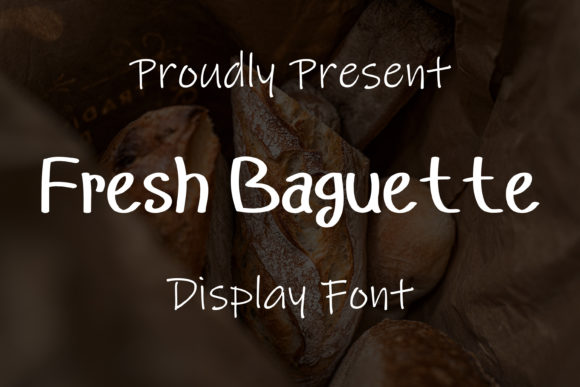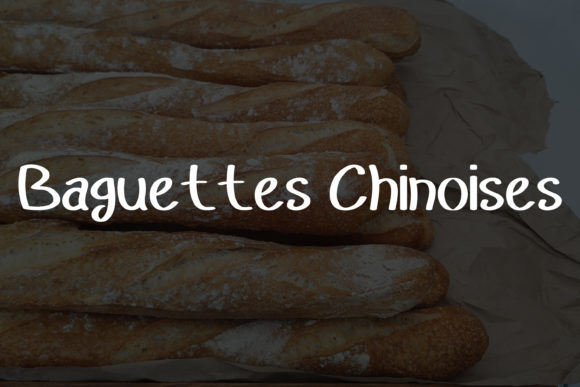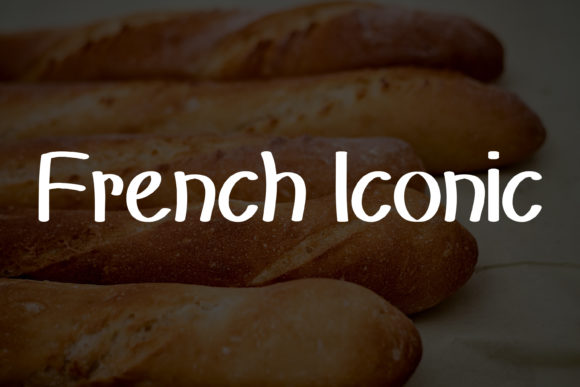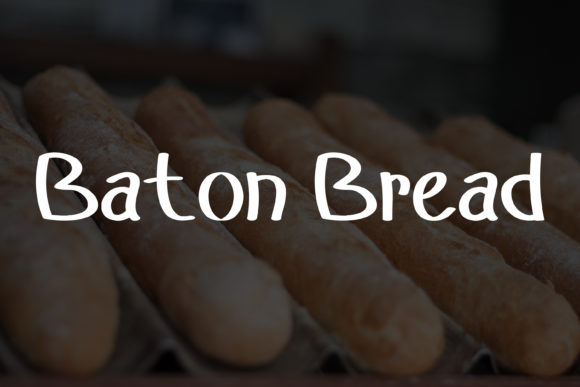
About Fresh Baguette Font
Fresh Baguette is an awesome handwritten font with playful characters and a friendly vibe. No matter the topic, this font will be an incredible asset to your fonts’ library, as it has the potential to elevate any creation!